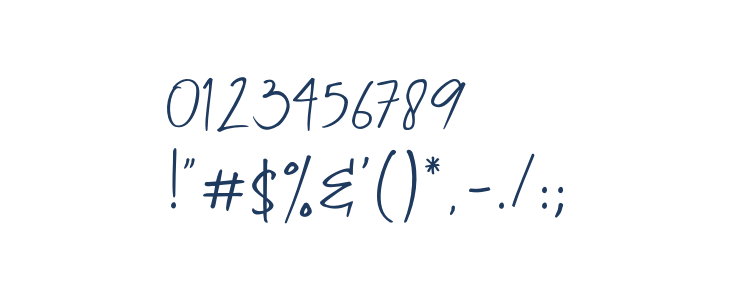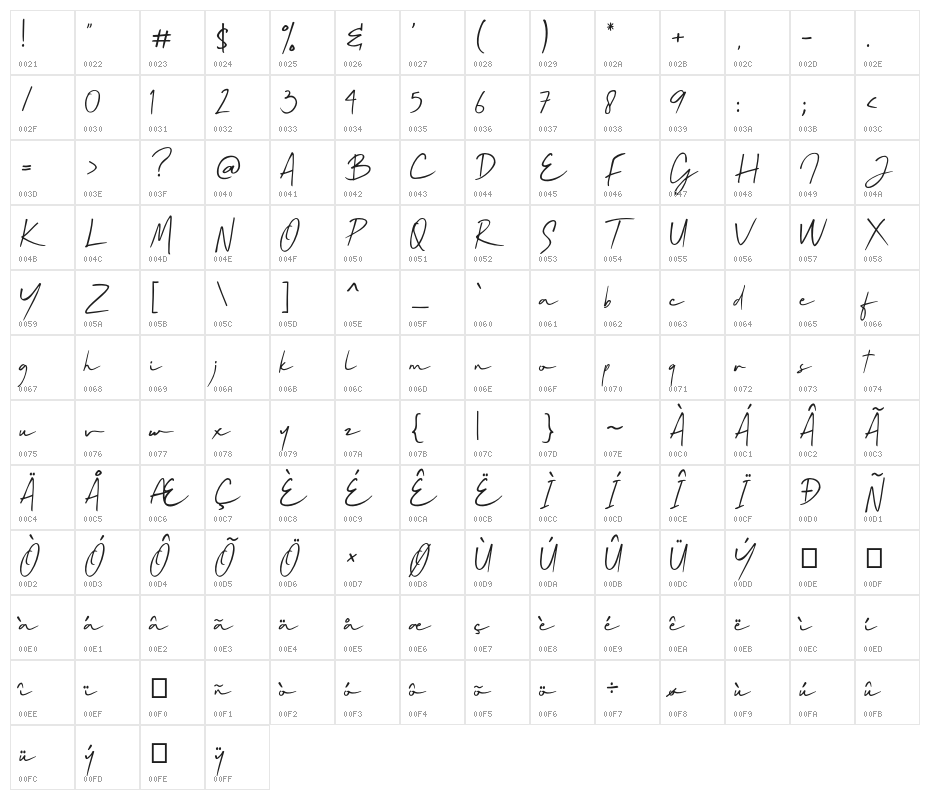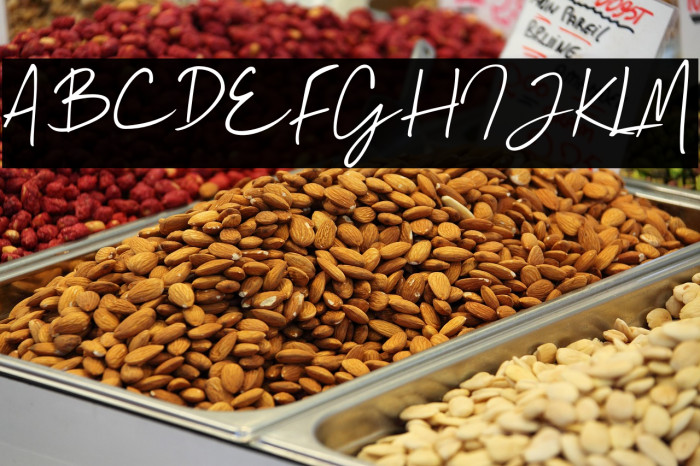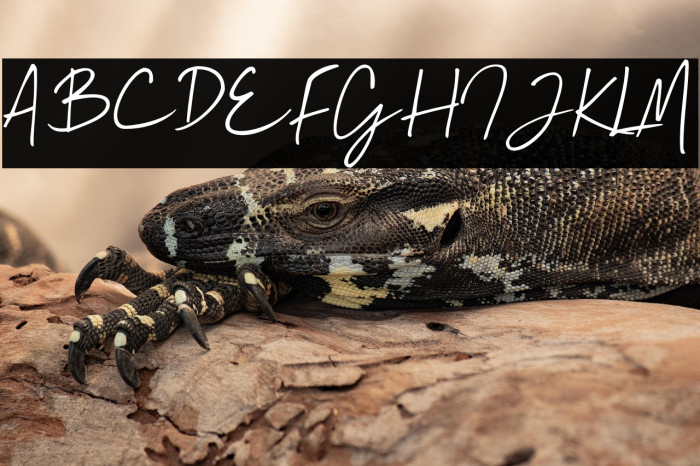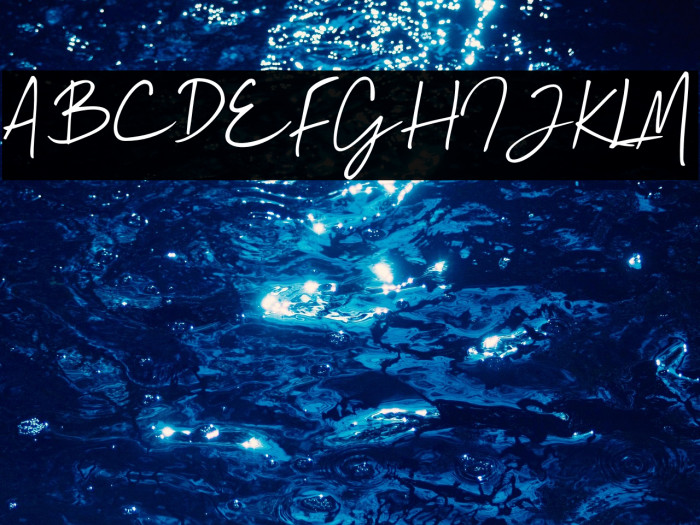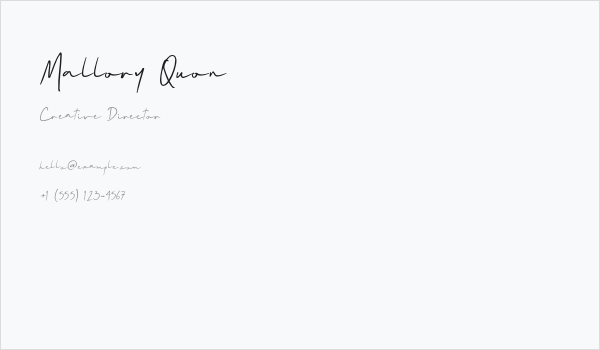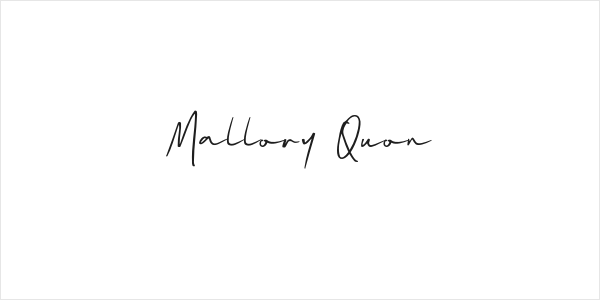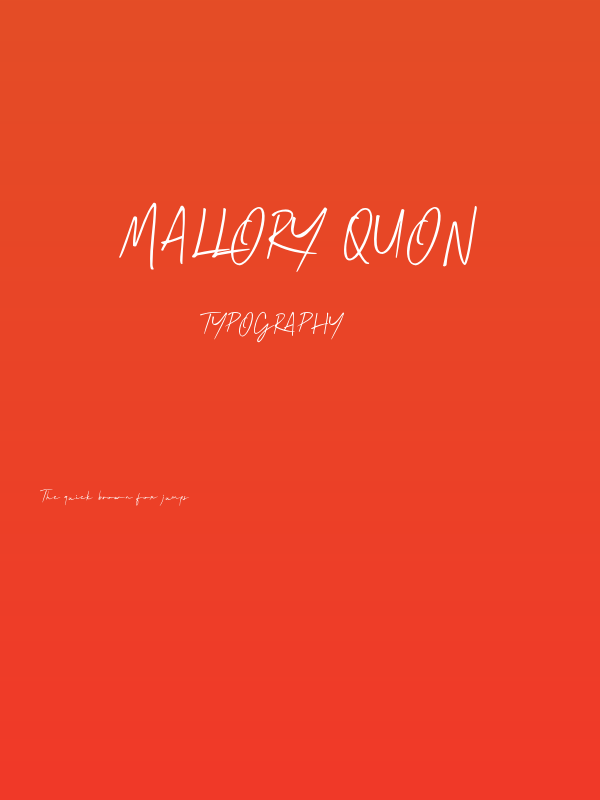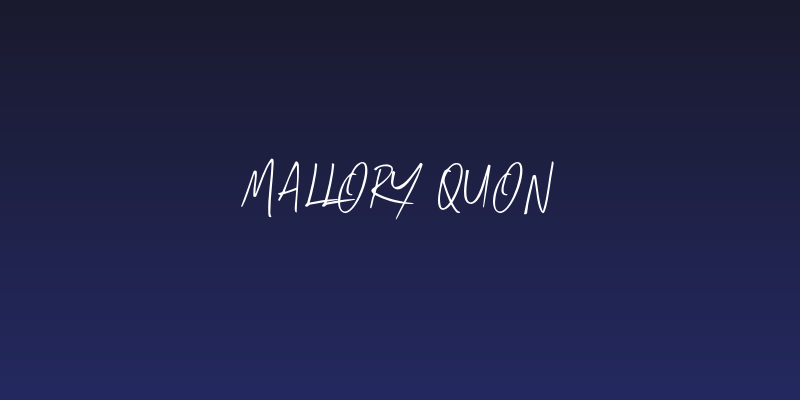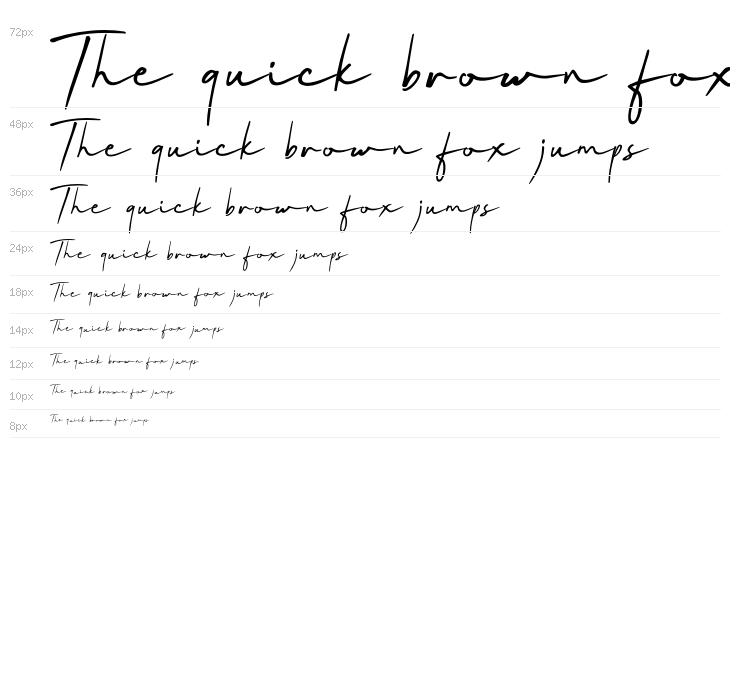
Mallory Quon Font
Mallory Quon Description
This font exudes a casual and spontaneous handwritten style, characterized by its fluid and dynamic strokes. The letters are slightly slanted, giving a sense of movement and energy. The uppercase and lowercase letters maintain a consistent flow, with some letters featuring unique loops and curves that add personality. The numbers and special characters are crafted with the same lively spirit, ensuring a cohesive look across all text elements. This font's organic and informal appearance makes it ideal for projects that require a personal touch.
Overall StyleCasual
Use CaseLogos, Invitations, Personal notes
Proposed ProjectsIdeal for personal notes, greeting cards, invitations, and creative branding projects.